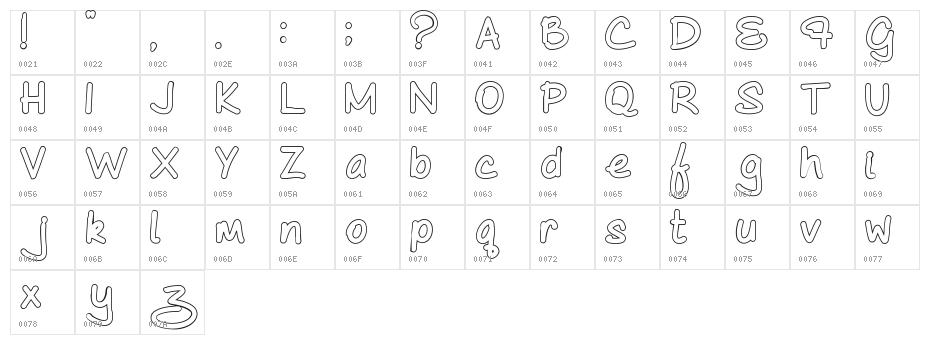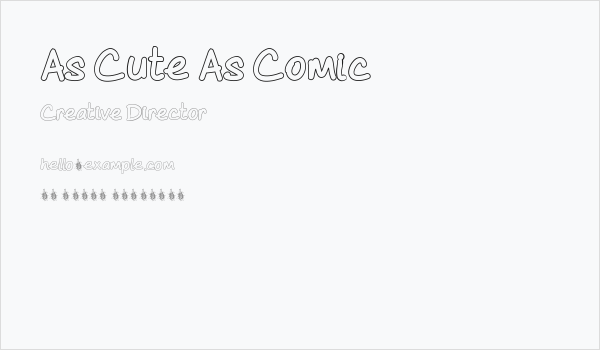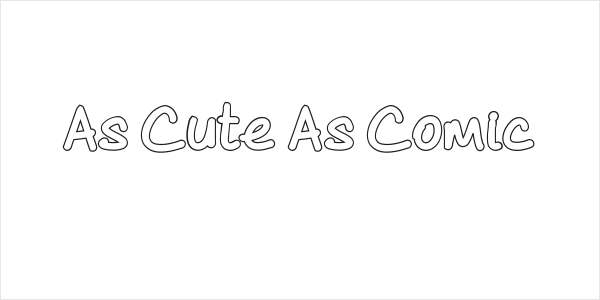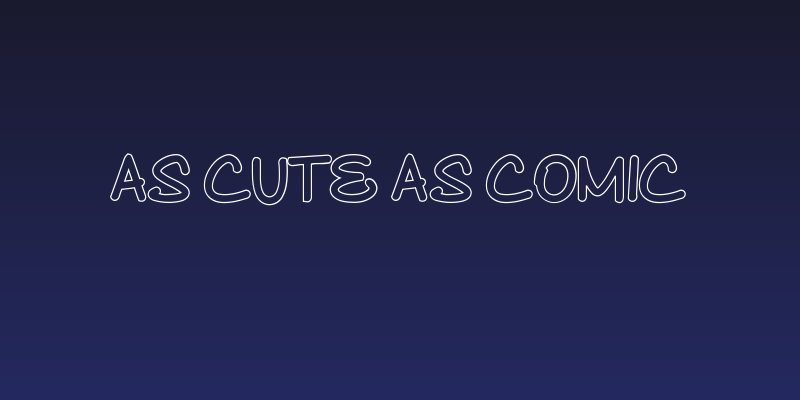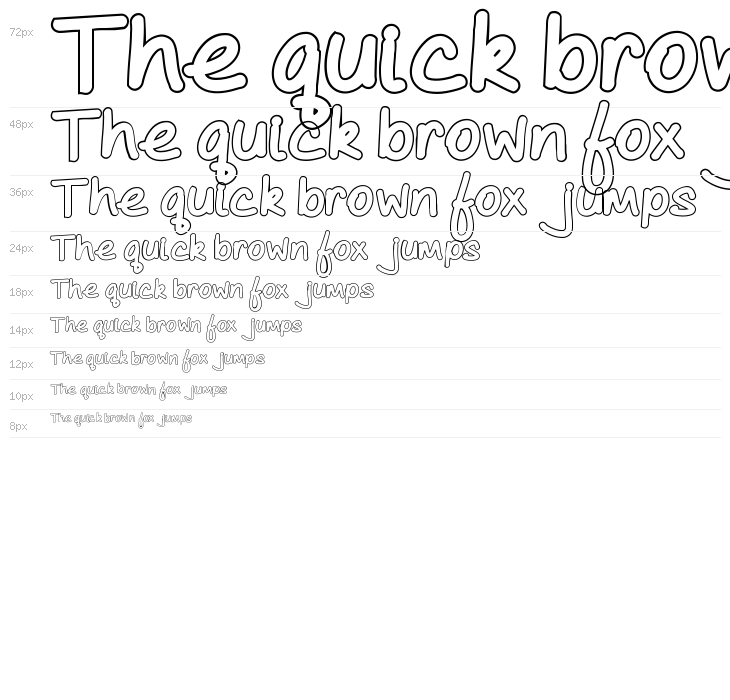
As Cute As Comic Font
As Cute As Comic Description
This playful and whimsical font features bold, rounded characters with a comic-style outline. The uppercase and lowercase letters maintain a consistent, bubbly appearance, reminiscent of hand-drawn comic book lettering. The font includes a unique set of special characters, such as exclamation marks and question marks, which are creatively designed to add a fun, explosive effect. The numbers are similarly styled, ensuring a cohesive look across all characters. This font's lively and energetic design makes it ideal for projects that require a touch of humor and creativity.
Overall StylePlayful, Comic
Proposed ProjectsIdeal for comic books, children's books, playful branding, and creative posters.